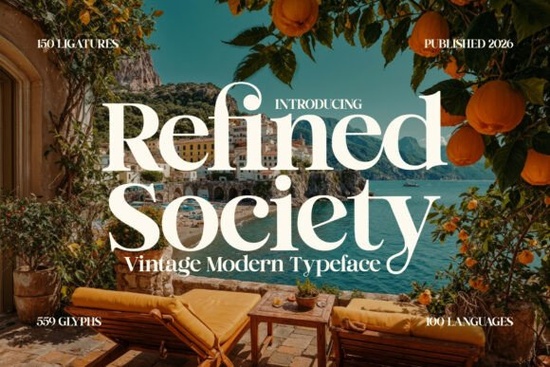
Refined Society is a vintage serif typeface that draws inspiration from Mediterranean elegance. If you're working on a project that needs a sophisticated, high-contrast serif think luxury travel branding, editorial layouts, or wedding invitations this font deserves a closer look. It blends classic serif details with a refined personality that feels both timeless and current.
What Makes Refined Society Different from Other Serif Fonts?
Most serif fonts fall into two camps: they're either too plain or too decorative. Refined Society sits right in the middle. Its high-contrast strokes give it a dramatic presence on the page, but the letterforms stay clean enough for body text at smaller sizes. That balance is hard to find.
Compared to something like the elegant Paloma typeface, which leans more into flowing, feminine curves, Refined Society takes a bolder, more editorial approach. It feels like something you'd see on the cover of a European lifestyle magazine.
Key features include:
- High-contrast thick and thin strokes that catch the eye without overwhelming the layout
- Refined serifs with subtle bracketing for a polished, classic feel
- Well-balanced letter spacing that works at both headline and subheading sizes
- Full uppercase and lowercase sets with numerals and punctuation
Who Is This Font Best Suited For?
Refined Society works well for anyone designing in the luxury, lifestyle, or editorial space. That includes:
- Wedding stationery designers invitations, menus, place cards, and envelope addressing
- Print-on-demand sellers premium-looking quotes, wall art, and greeting cards
- Small business owners logos, packaging, and brand identity for upscale products
- Bloggers and content creators social media graphics, Pinterest pins, and blog headers
- Editorial designers magazine layouts, book covers, and lookbooks
If your audience expects a polished, high-end look, this typeface delivers that without needing a lot of extra design work around it.
How Does Refined Society Compare to Other Creative Fabrica Serifs?
Creative Fabrica has a strong collection of serif fonts, and it's worth knowing how Refined Society fits among them.
The Roses Garden serif font is a great option if you want something more romantic and botanical. It pairs well with floral designs and softer brand aesthetics.
For a more rustic, market-style feel, the Vintage Market typeface brings a handcrafted, shabby-chic energy. It's ideal for farmhouse-style printables and craft projects.
If you prefer a modern serif with a slightly softer edge, the Emerale serif font has a contemporary elegance that works beautifully for branding and packaging.
Refined Society stands apart because of its Mediterranean-inspired character. It carries a sense of old-world luxury think coastal Italian hotels, French fashion editorials, and high-end resort branding. If that's the mood you're after, it's the right choice.
Best Font Pairings for Refined Society
A strong serif like this one pairs best with a simple, clean sans-serif or a casual script. Here are some combinations that work:
- Refined Society + a light sans-serif for editorial layouts and brand identities
- Refined Society + a flowing script font for wedding stationery and invitations
- Refined Society alone in all caps for bold logos and monogram-style designs
Avoid pairing it with another high-contrast serif. Two competing serif fonts in the same layout usually create visual noise instead of harmony.
What Types of Projects Can You Sell with This Font?
If you're a print-on-demand seller or digital product creator, Refined Society opens up several product categories:
- Wedding invitation suites invitation cards, RSVP cards, save-the-dates, and thank-you cards
- Quote wall art typography prints with travel, lifestyle, or motivational quotes
- Logo templates sell customizable logo kits on Etsy or Creative Market
- Social media templates Instagram stories, Pinterest graphics, and Facebook headers
- Brand kits for small businesses especially for beauty, fashion, and hospitality brands
Just make sure you check the font license for commercial use. Most Creative Fabrica fonts come with a commercial license, but it's always good to confirm the specific terms.
How to Get the Most Out of This Typeface
A few practical tips from real design work:
- Use it at larger sizes Refined Society looks its best as a headline or display font. Its details get lost below 14pt.
- Give it breathing room add generous letter-spacing and line-height so the contrast in the strokes can shine.
- Stick to neutral or muted color palettes soft golds, deep navy, cream, and charcoal complement its Mediterranean vibe.
- Test it with your target audience if you're using it for a product listing or brand, show a few mockups to real customers before committing.